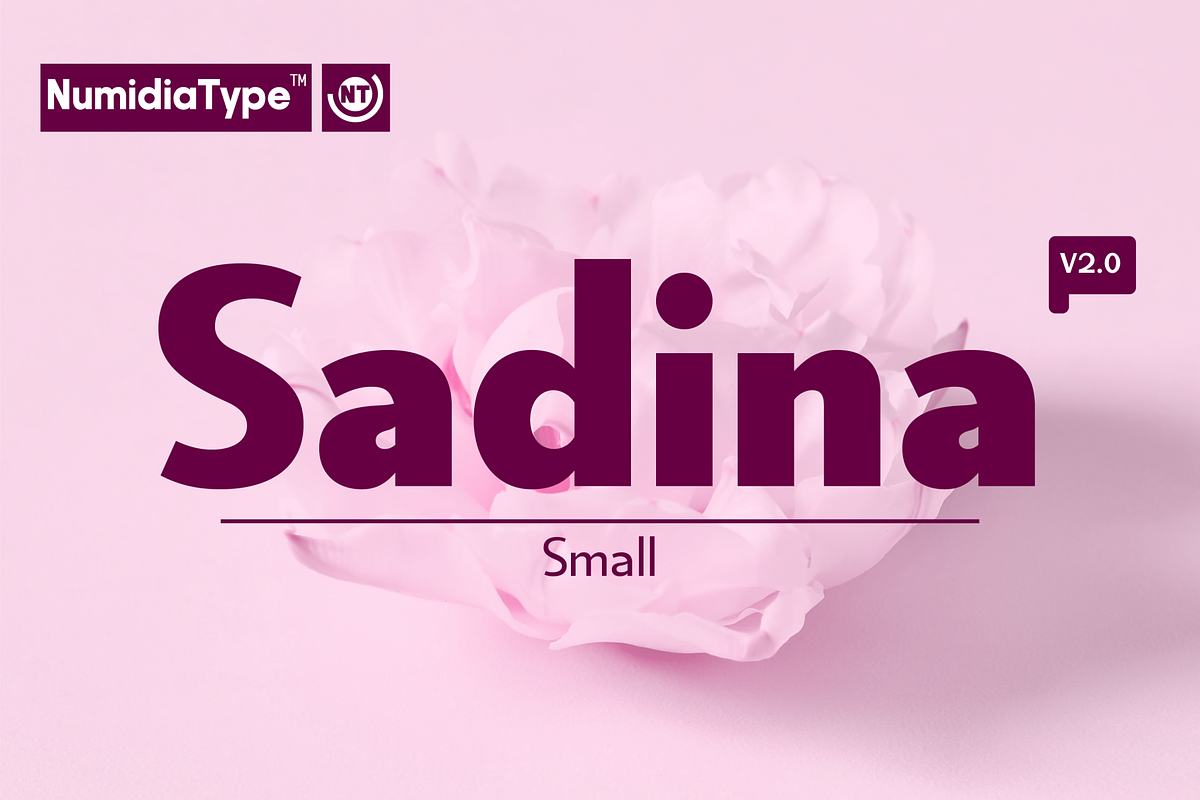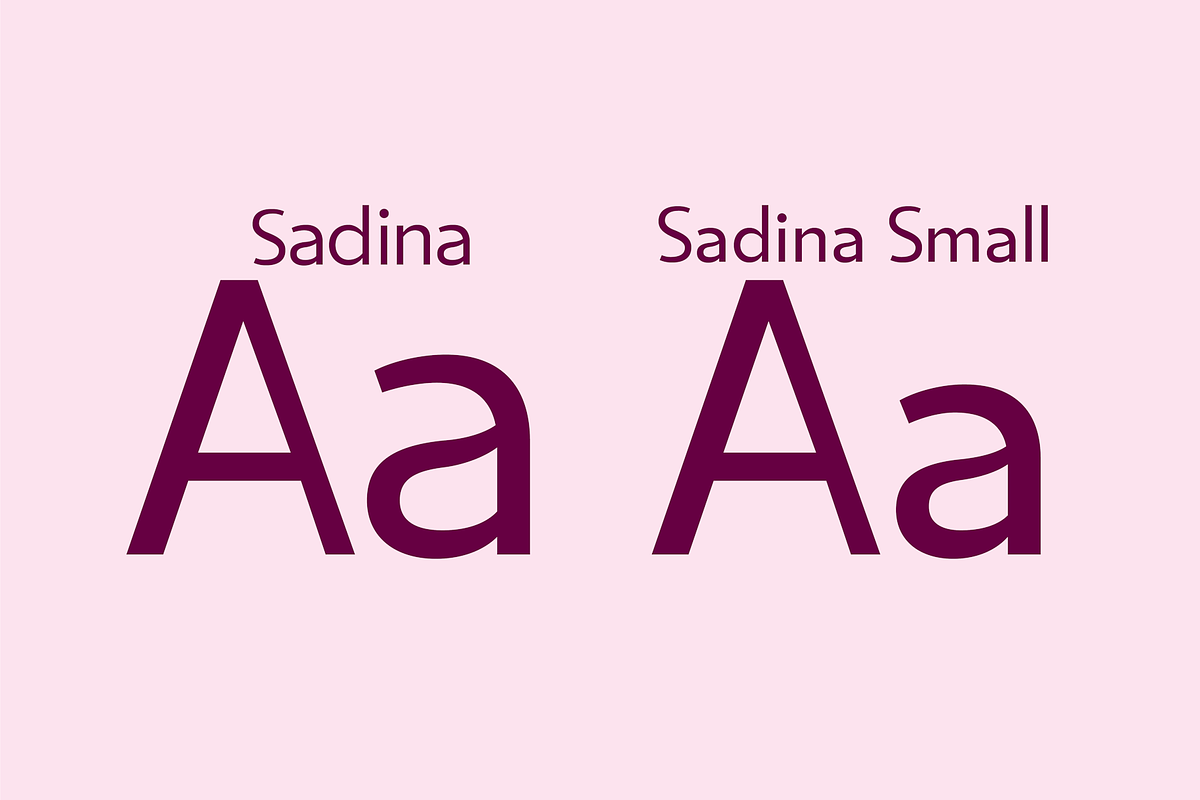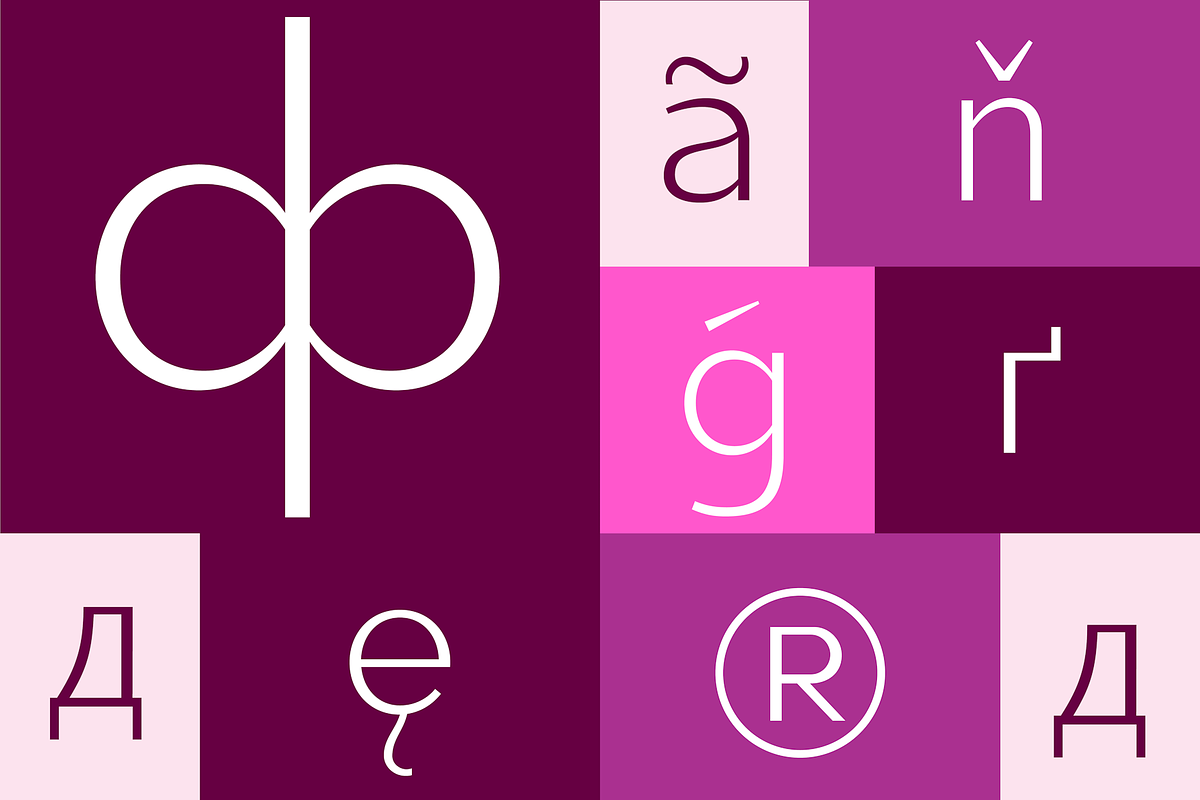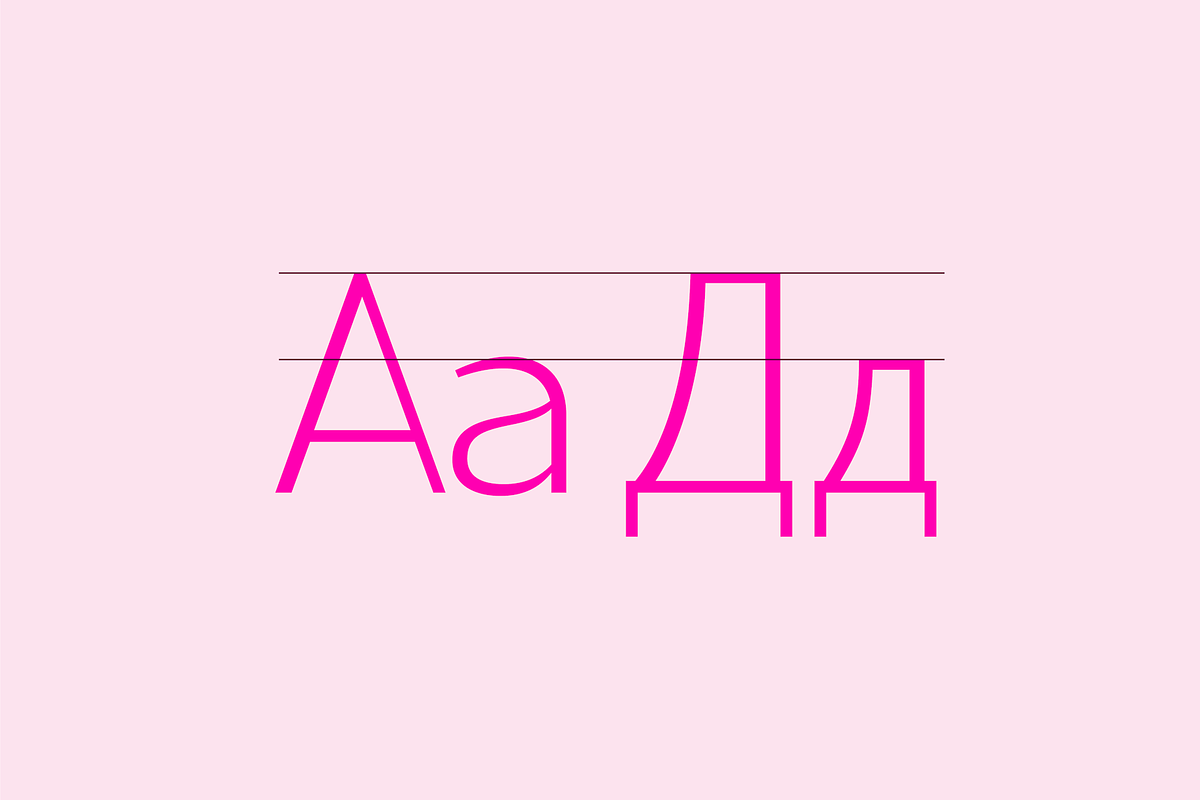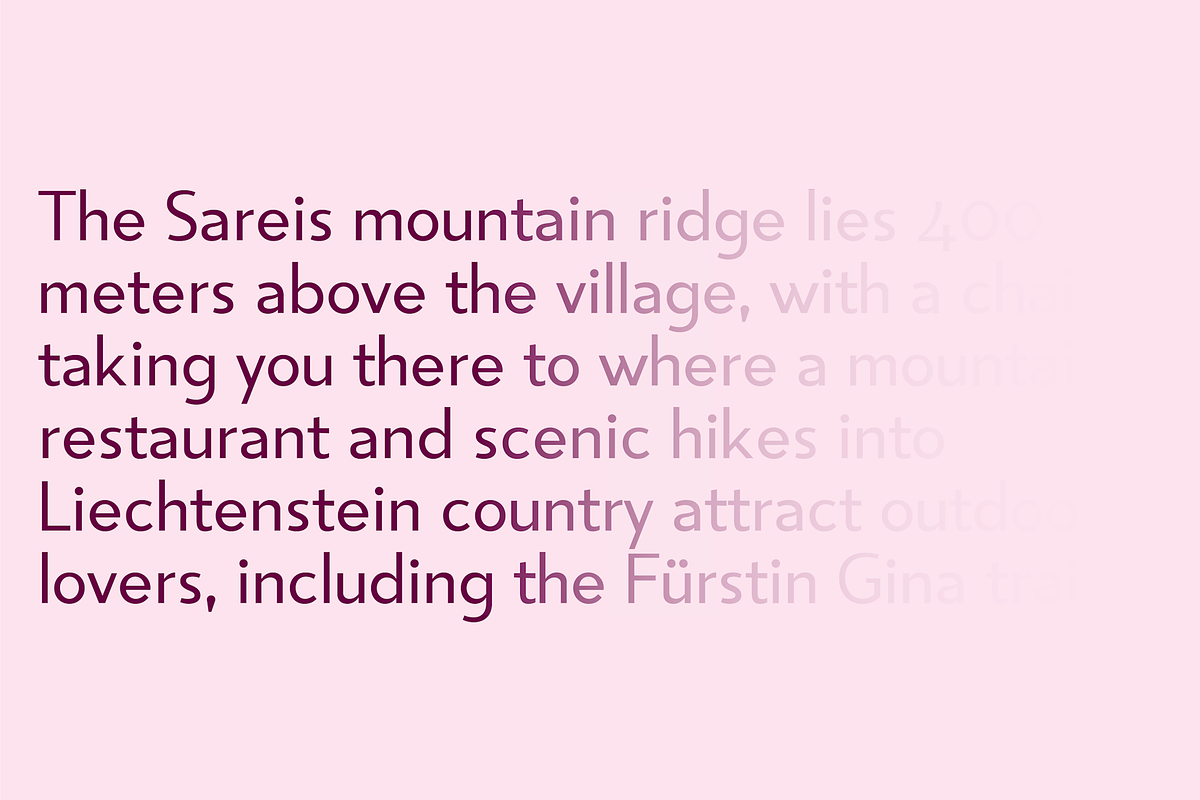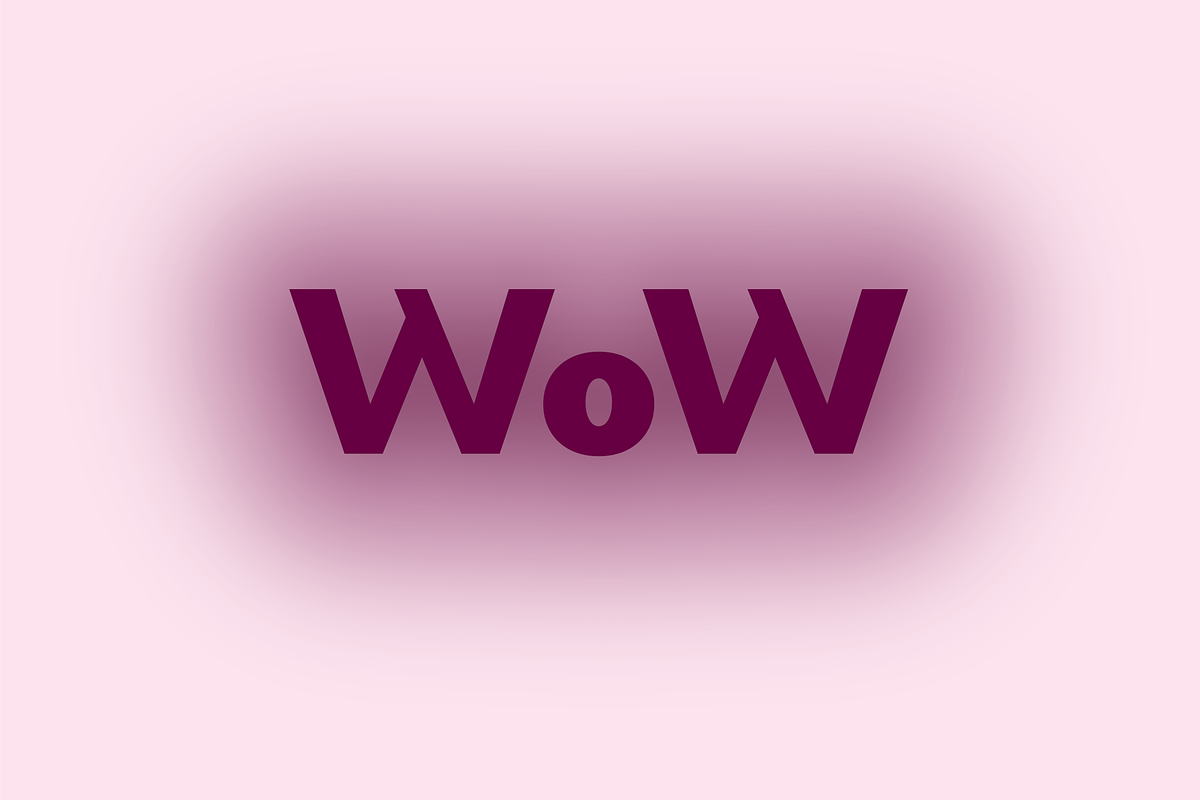
Sadina S
Sadina™ S is a modern sans-serif typeface designed for headlines and impactful typography. Its distinctive feature is the significant size difference between uppercase and lowercase letters. This contrast creates a visually appealing hierarchy and highlights key words. The font features wide, clear letterforms that ensure readability even at smaller sizes. While part of a larger family, Sadina™ S excels as a standalone display typeface suitable for branding, marketing materials, and other design applications where a bold, contemporary look is desired.